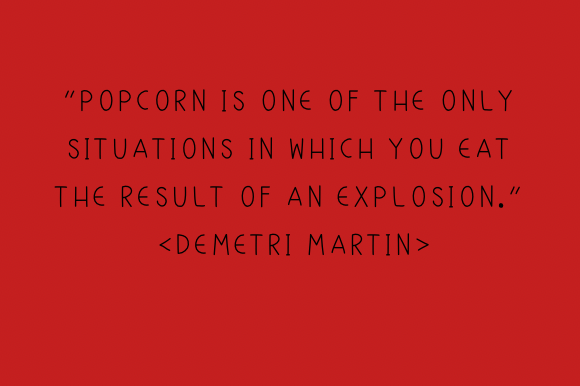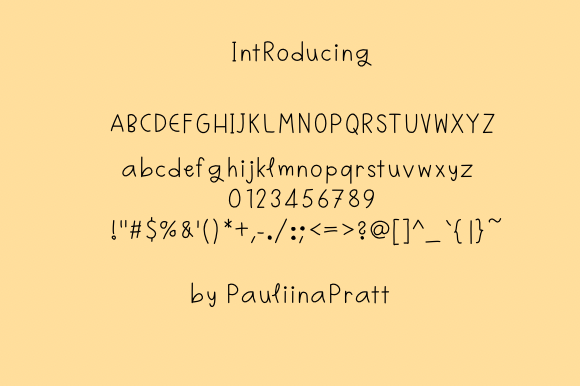
The Sweet Spot: Discovering Caramel Popcorn Font
I’ll never forget the time I was working on a design project for a client’s birthday card. I had the perfect concept, the colors were on point, but I just couldn’t find the right font to tie everything together. That’s when I stumbled upon Caramel Popcorn Font. It was love at first sight! ✨ The beautiful, handwritten characters instantly added a warm and friendly touch to my design. In this article, I’ll share my experience with Caramel Popcorn Font, its features, and how to make the most of it in your designs.
- Beautifully crafted, well-balanced characters ✅
- Suitable for a wide range of crafty ideas, from greeting cards to wall art 🎨
- Cute and friendly vibe that’s perfect for casual designs 😊
- Easily pairs with other fonts for a unique look 👫
While Caramel Popcorn Font is amazing, there are a few things to keep in mind: 🤔
- May not be the best fit for very formal or corporate designs ⚠️
- Some characters may require manual kerning for optimal spacing 📊
- Experiment with OpenType features, such as ligatures and stylistic alternates, to add some personality to your text
Exploring Alternatives: Similar Fonts to Caramel Popcorn
The Story Behind Caramel Popcorn Font
Caramel Popcorn Font was designed with love and care by a talented type designer who wanted to create a font that would add a touch of warmth and friendliness to any design. The font’s inspiration comes from the joy of simple pleasures in life, like snacking on caramel popcorn while watching a favorite movie 🎥
| Font Name | Caramel Popcorn Font |
| Author | PauliinaPrattDesign |
Q: Does Caramel Popcorn Font support OpenType features?
A: Yes, Caramel Popcorn Font supports OpenType features, including ligatures and stylistic alternates 📊